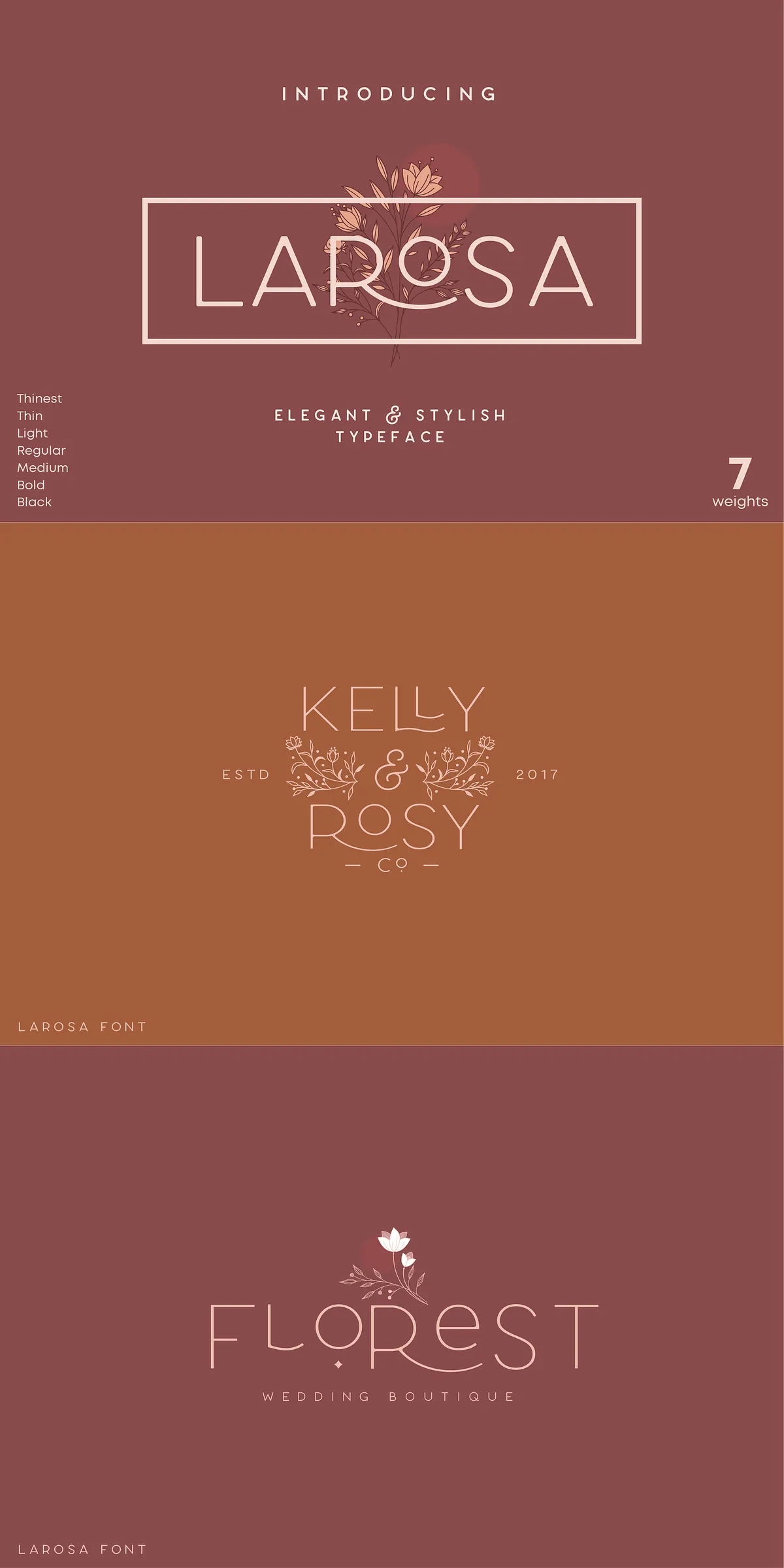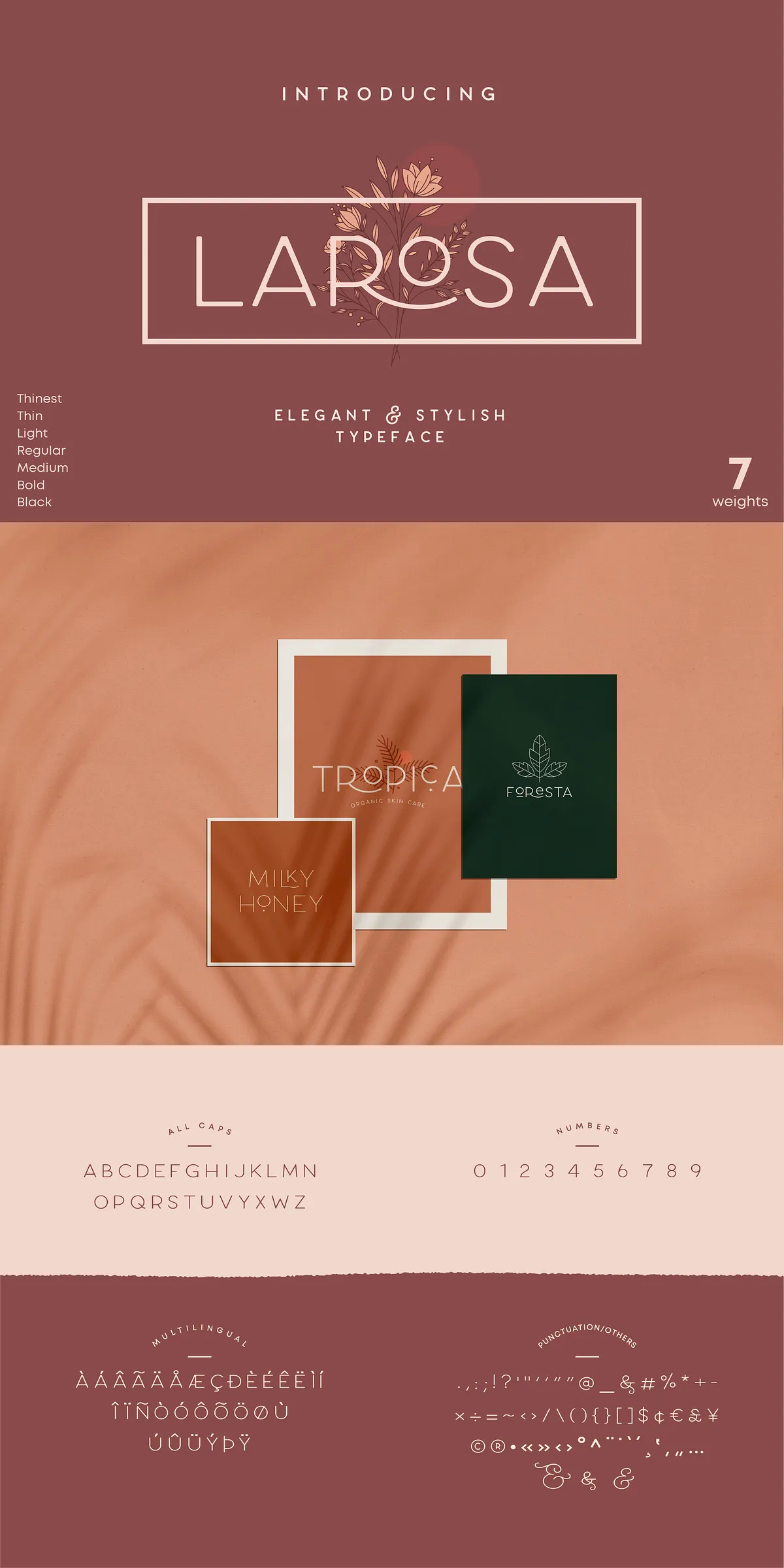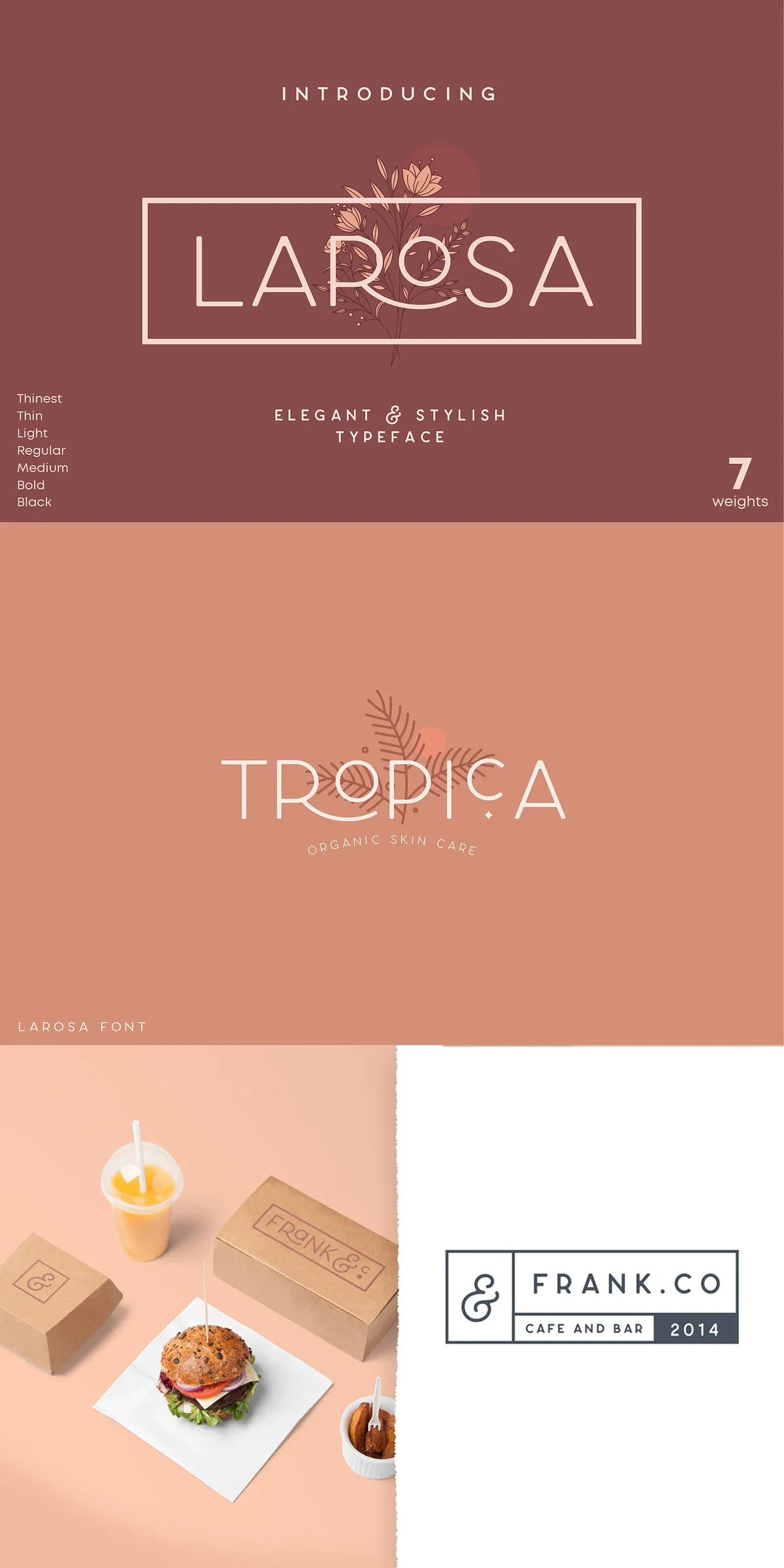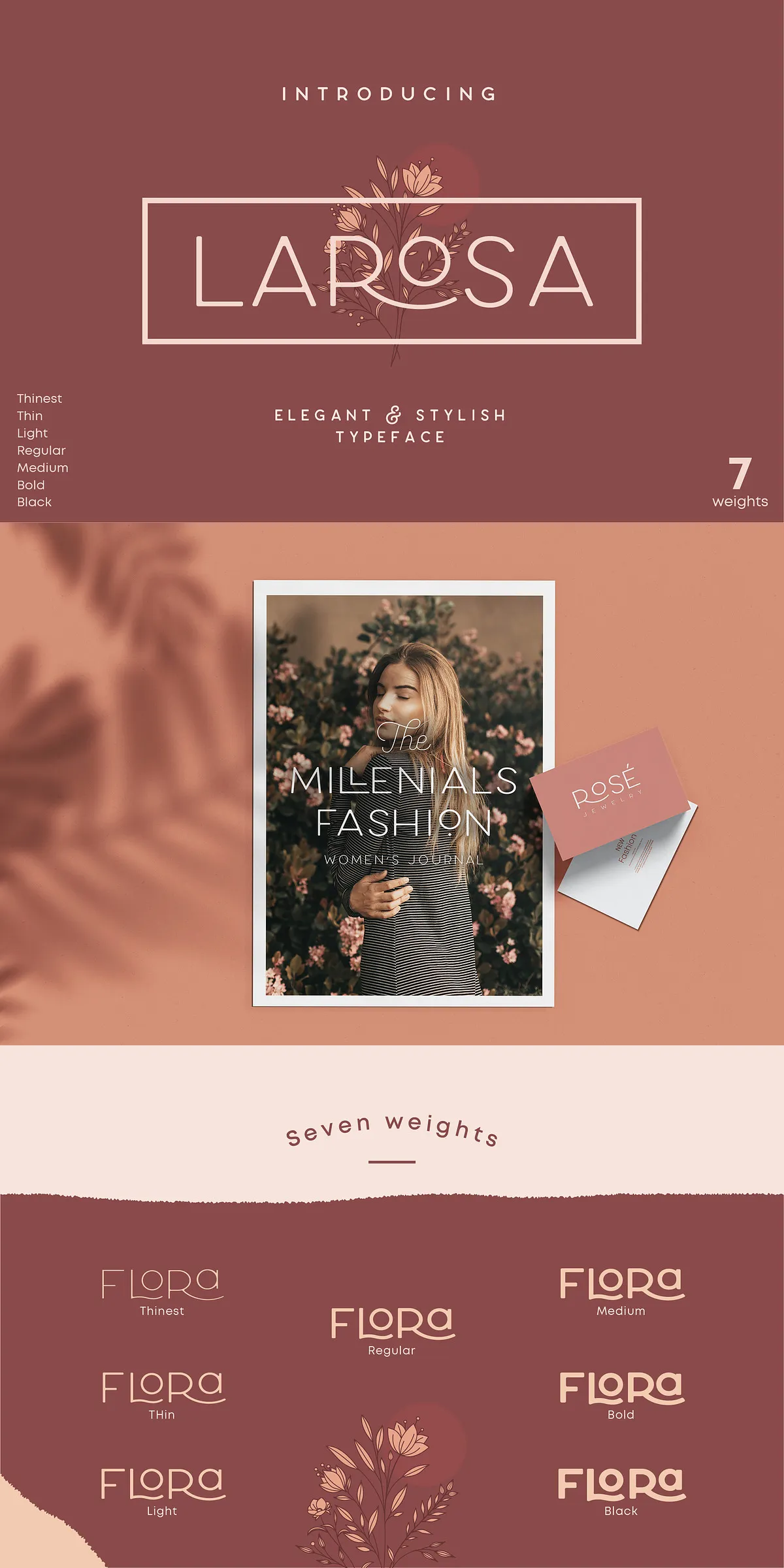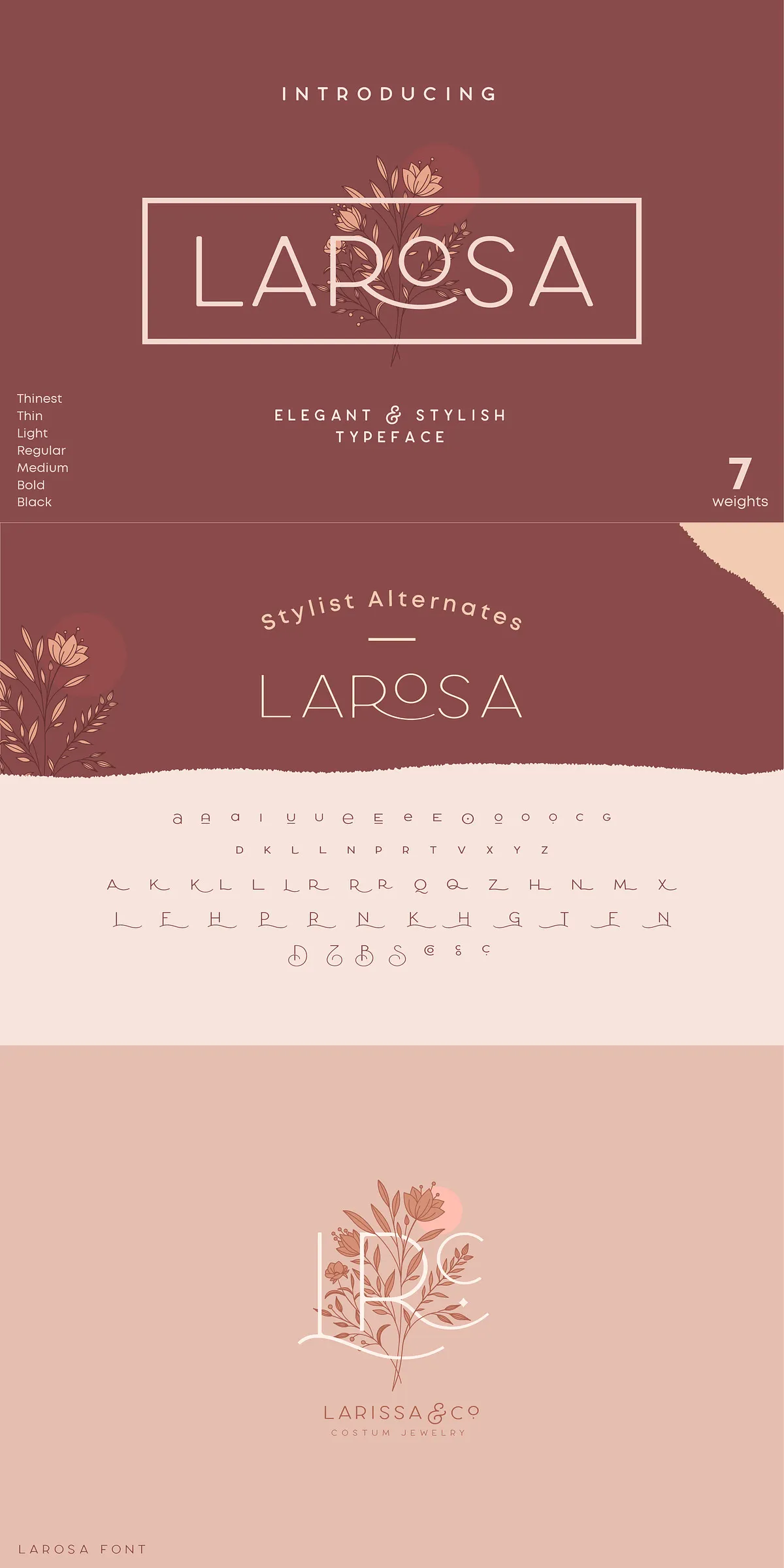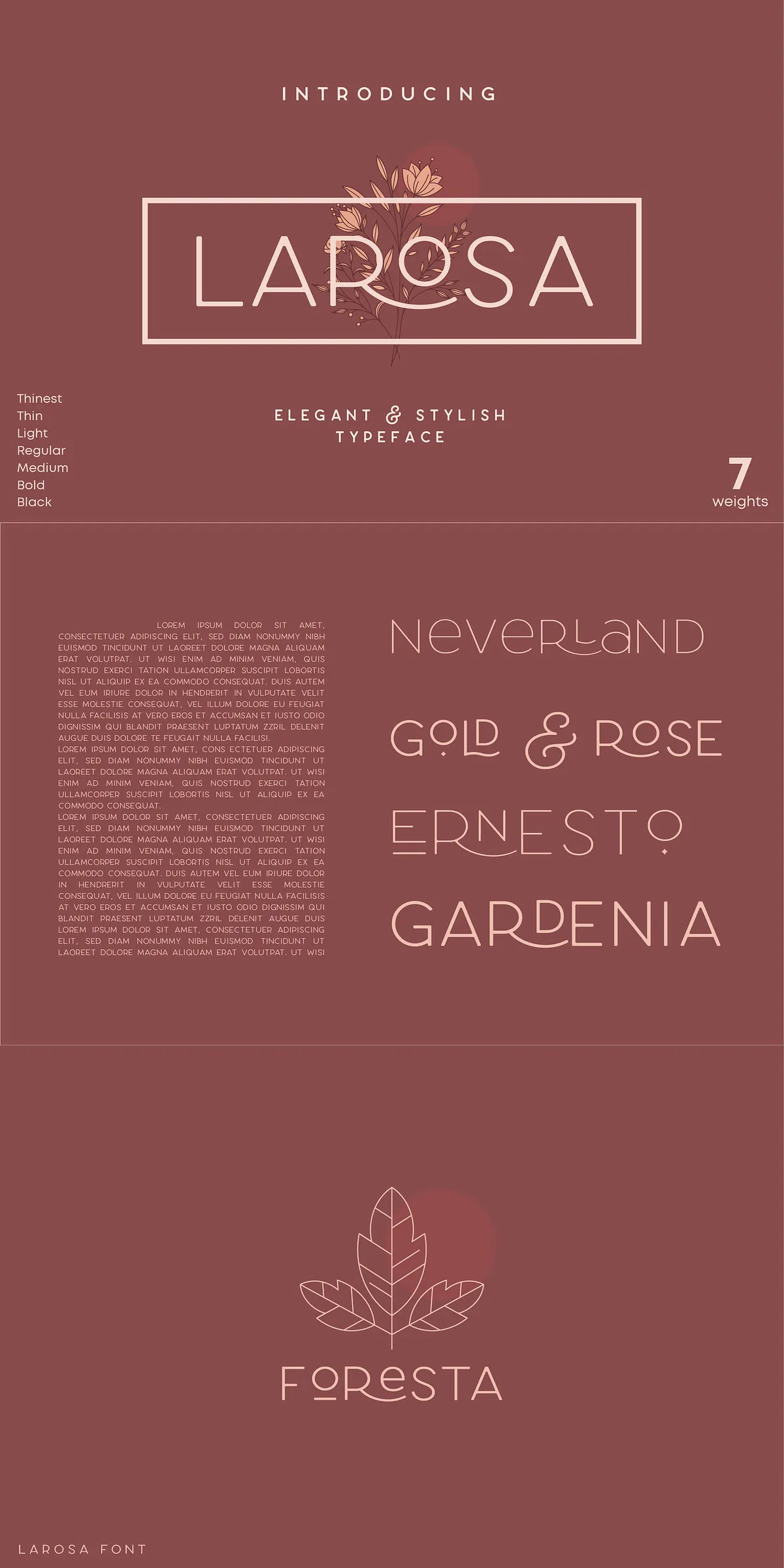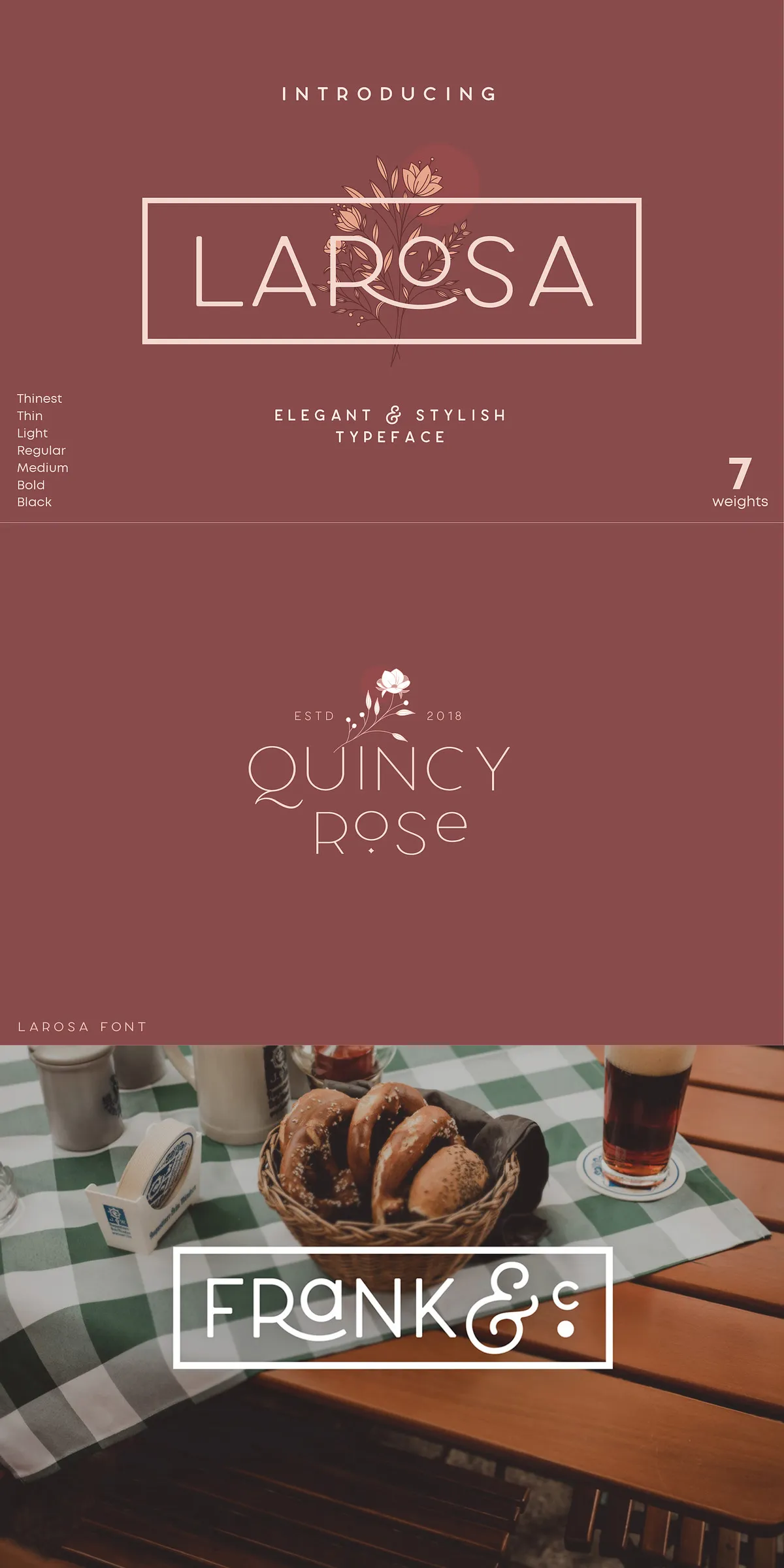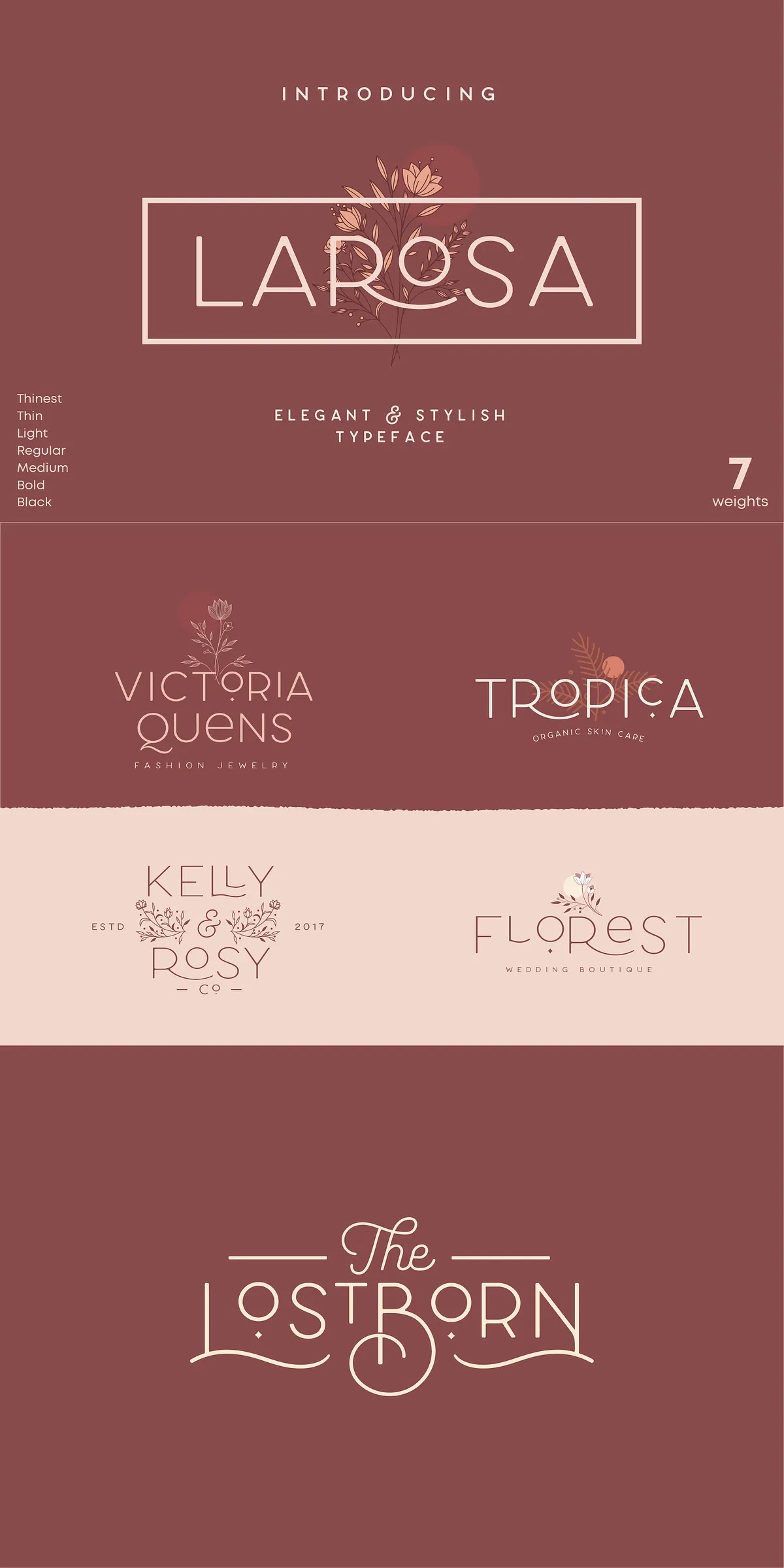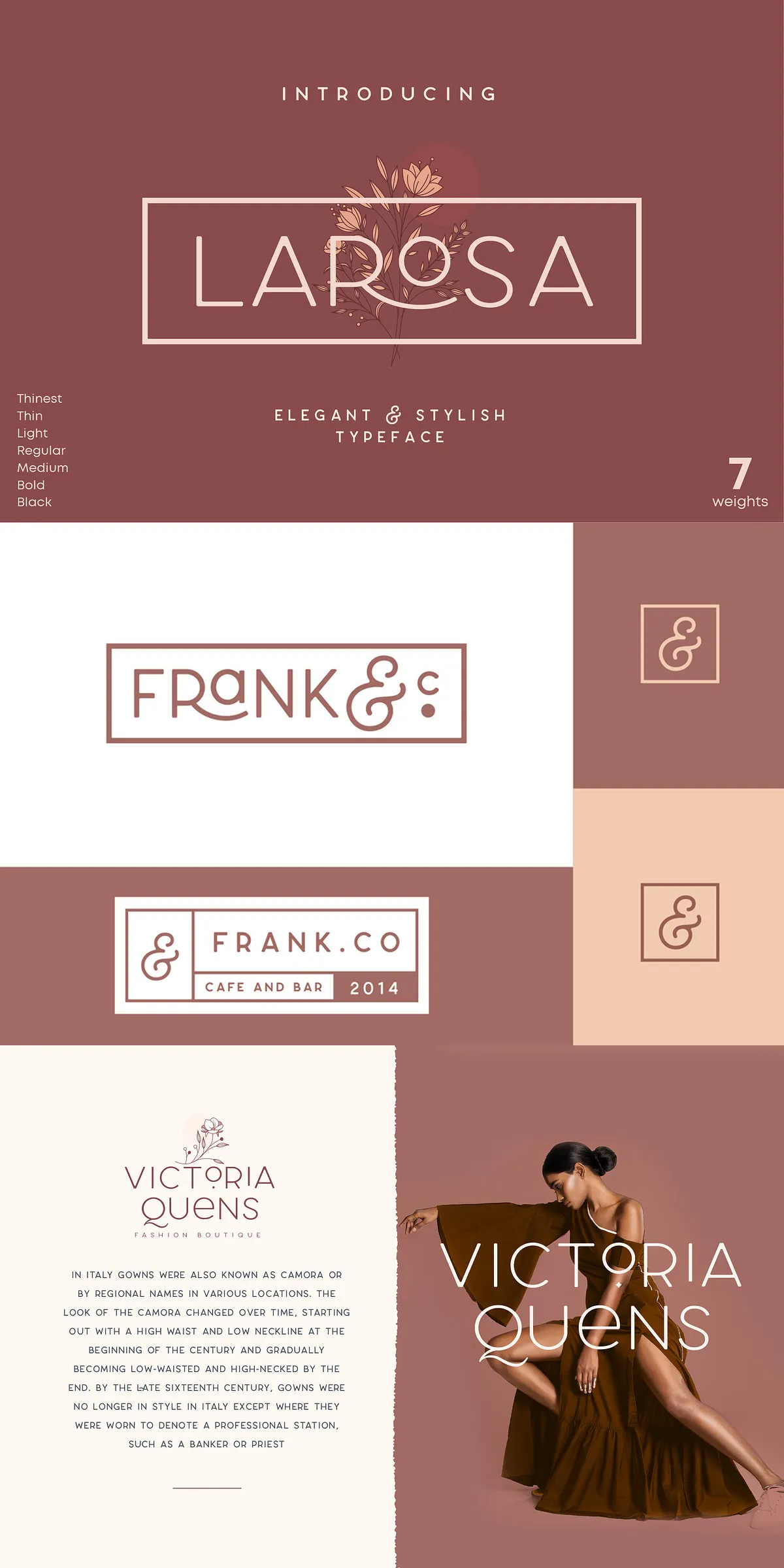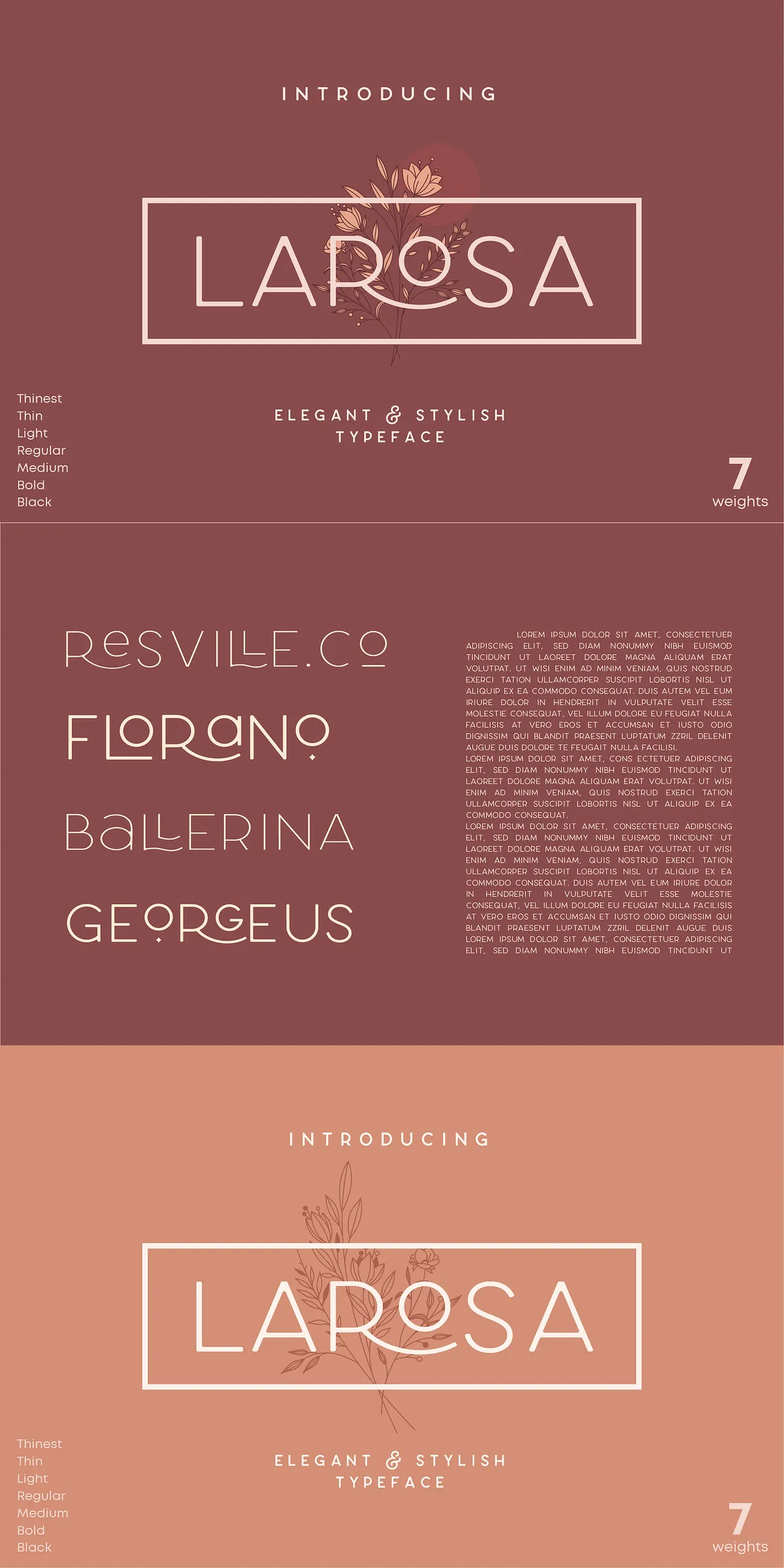
Larosa Sans Elegant Typeface
Step into a new era of typographic expression with Larose Sans — a stunning modern sans serif typeface crafted for designers who demand both elegance and versatility. Built on clean geometry and refined humanist principles, Larose Sans isn’t just a font; it’s a dynamic design language that empowers your imagination to take flight. With seven distinct weights, an extensive library of stylistic alternates, and full support for multilingual typography, this font family transforms every project into a visual conversation.
Seven Weights, Infinite Possibilities
From Ultra-Light to Black — Design with Precision & Power
Larose Sans delivers a complete typographic ecosystem with **seven carefully calibrated weights**, ranging from light and airy to bold and commanding. Whether you’re crafting a minimalist logo, a high-impact poster headline, or a sleek packaging design, there’s a weight that perfectly matches your visual intent. The progression is seamless, allowing you to create visual hierarchy with confidence and precision.
• Light (100) — Ideal for delicate headlines, editorial layouts, and subtle branding.
• Regular (400) — The go-to choice for body text, digital interfaces, and clean modern typography.
• Medium (500) — Adds subtle emphasis without overwhelming — perfect for subheadings and pull quotes.
• Semibold (600) — Commands attention in displays and presentation graphics.
• Bold (700) — Strong and expressive, perfect for posters, banners, and logo marks.
• Extra Bold (800) — Delivers maximum impact for large-format designs.
• Black (900) — For bold declarations, dramatic posters, and high-contrast branding.
Each weight maintains consistent proportions, ensuring harmony across your entire design system.
Stylistic Alternates & Ligatures — Unlock Creative Freedom
Transform Your Typography with Customized Letterforms
What truly sets Larose Sans apart is its **rich library of stylistic alternates and ligatures** — giving you the power to customize every detail. With a single click, you can switch from standard glyphs to hand-crafted flourishes, unique terminals, or ornamental variants, bringing personality and uniqueness to your design.
Whether you’re designing a luxury fashion brand’s tagline or a retro-inspired music poster, Larose Sans lets you express your creative vision with confidence.
Complete Typographic Coverage for Real-World Design
Professional-Grade Features for Seamless Workflow
Larose Sans is engineered for professional use, featuring a full suite of typographic tools that ensure flawless execution across platforms and media:
• All caps and lowercase characters — Full Latin alphabet coverage with consistent spacing and kerning.
• Numerals & punctuation — Includes tabular and proportional figures, fractions, parentheses, quotation marks, em/dashes, and more.
• Accented characters — Support for extended Latin, Greek, and Cyrillic scripts, enabling multilingual use across French, German, Spanish, Portuguese, Italian, Scandinavian, and Eastern European markets.
• OpenType features (STANDARD) — Access to ligatures, swash variants, case-sensitive forms, and stylistic sets for advanced typographic control.
• PUA encoding (Private Use Area) — Additional symbols and icons for branding, editorial design, and custom icons.